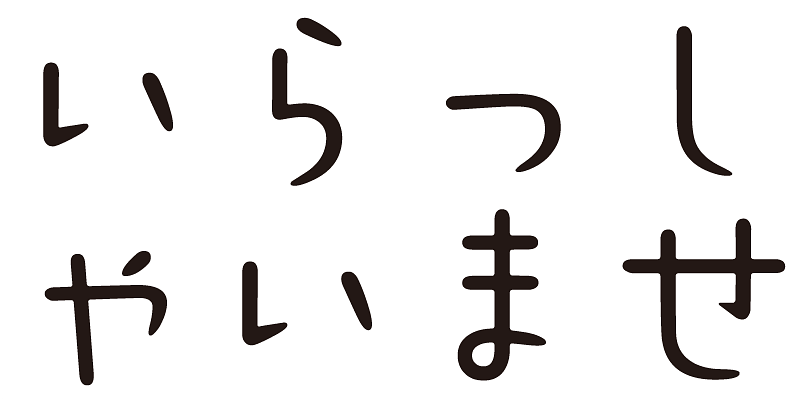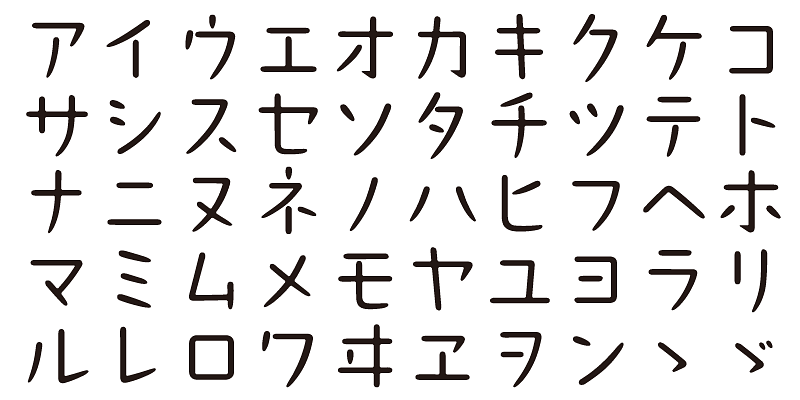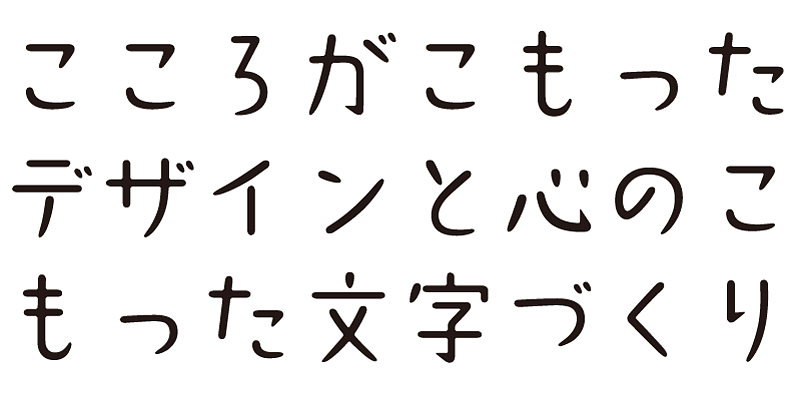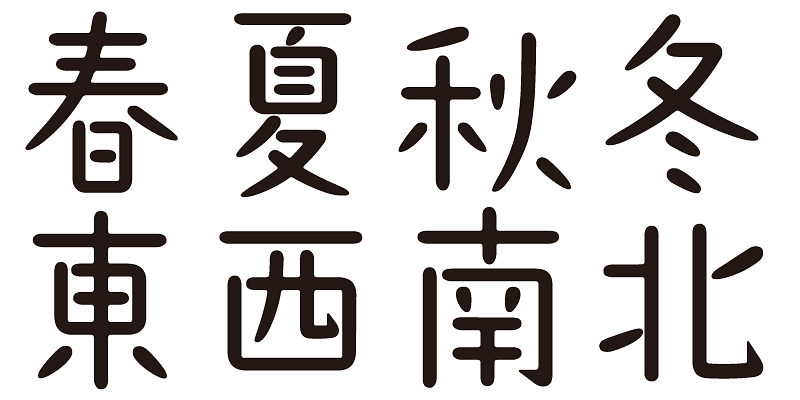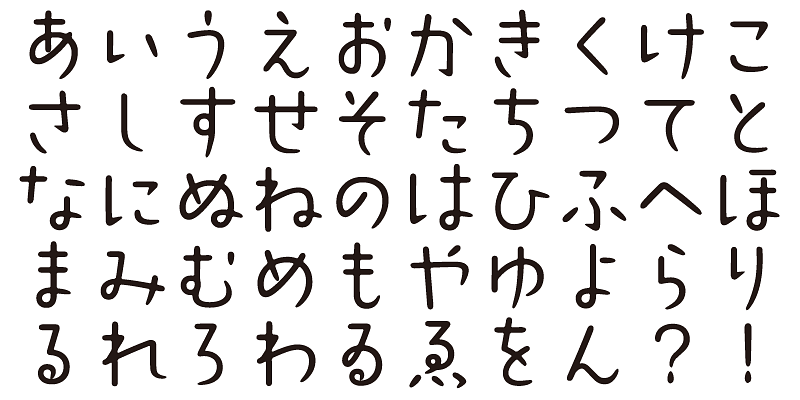
Slow and easy, moving at leisure, flowing freely; this typeface strolls with a sense of calm unhurried grace.
This font includes top 1,000 kanji characters chosen from character frequency tables made by newspaper companies, publishing houses and linguistic research institutes, plus about 400 alphanumeric, kana characters and punctuation marks.
We design typefaces with the hope that they will add underlying meaning to words expressed. We wish the user to feel good and experience comfort and joy when using these typefaces.